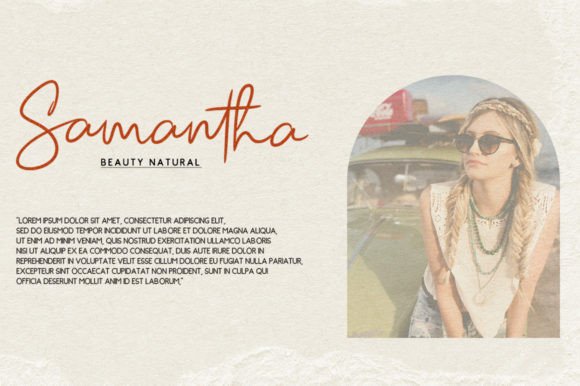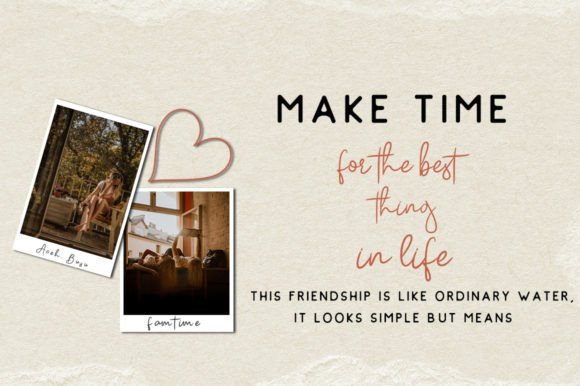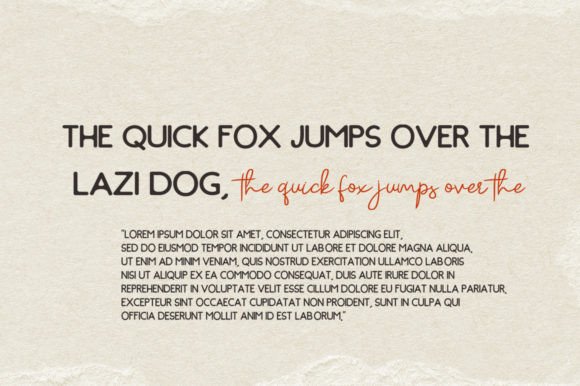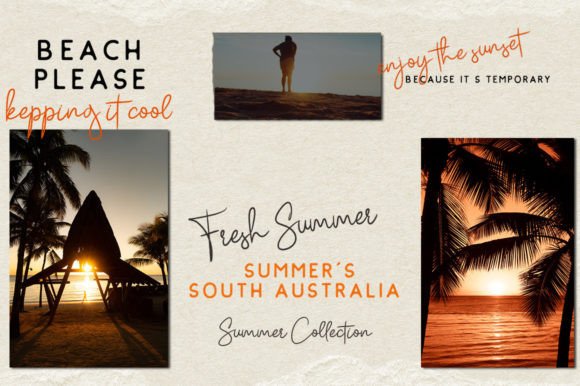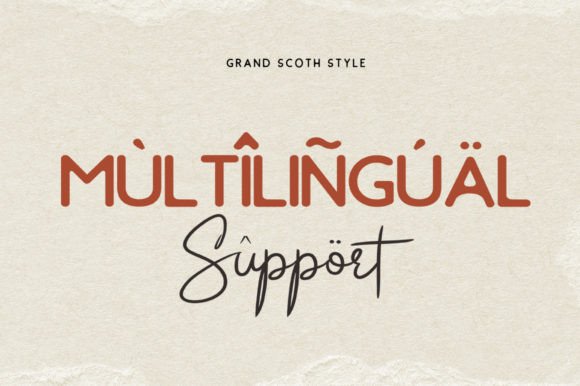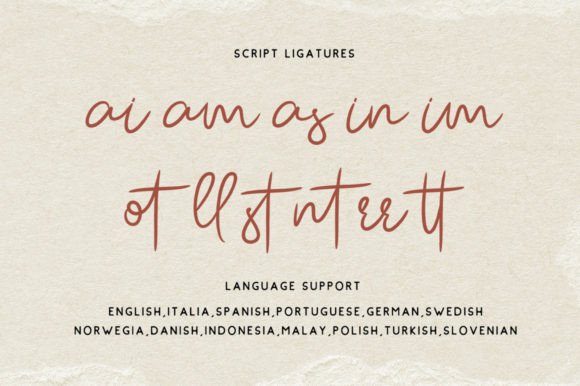
Discover the Timeless Elegance of Grand Scoth Font
Are you a designer or crafter looking for the perfect font to elevate your designs? Look no further than the Grand Scoth Font, a stunning combination of two fonts that will make your work stand out. In this article, we’ll dive into the unique features of Grand Scoth and explore how it can help you create spectacular designs that exude elegance and sophistication.
The Perfect Combination: Round Sans and Authentic Signature Typeface
Grand Scoth Font is the perfect blend of two fonts: a round sans and an authentic signature typeface. This unique combination allows you to create designs that are both modern and timeless. The round sans font provides a clean and crisp look, while the authentic signature typeface adds a touch of elegance and sophistication. Whether you’re designing a logo, brochure, or social media post, Grand Scoth Font has got you covered.
Incredibly Distinct and Timeless Style
One of the standout features of Grand Scoth Font is its incredibly distinct and timeless style. The font’s unique design ensures that your designs will never go out of style, making it a valuable addition to your font collection. The round sans font is perfect for headlines and titles, while the authentic signature typeface is ideal for adding a personal touch to your designs. With Grand Scoth Font, you can create designs that are both modern and classic, making it perfect for a wide range of design projects.
Use Grand Scoth Font to Create Spectacular Designs
So, how can you use Grand Scoth Font to create spectacular designs? Here are a few ideas to get you started:
- Logos and Branding: Use Grand Scoth Font to create a unique and memorable logo that reflects your brand’s personality.
- Brochures and Flyers: Add a touch of elegance to your marketing materials with Grand Scoth Font’s authentic signature typeface.
- Social Media Posts: Make your social media posts stand out with Grand Scoth Font’s round sans font.
- Wedding Invitations: Use Grand Scoth Font to create beautiful and elegant wedding invitations that will impress your guests.
Why Designers and Crafters Love Grand Scoth Font
So, why do designers and crafters love Grand Scoth Font? Here are just a few reasons:
- Unique Design: Grand Scoth Font’s unique design ensures that your designs will stand out from the crowd.
- Versatility: Grand Scoth Font can be used for a wide range of design projects, from logos and branding to social media posts and wedding invitations.
- Elegance and Sophistication: Grand Scoth Font adds a touch of elegance and sophistication to any design, making it perfect for high-end brands and luxury products.
Get Ready to Fall in Love with Grand Scoth Font
If you’re looking for a font that will take your designs to the next level, look no further than Grand Scoth Font. With its unique combination of a round sans and authentic signature typeface, Grand Scoth Font is the perfect addition to your font collection. Whether you’re a designer or crafter, Grand Scoth Font is sure to inspire you to create spectacular designs that exude elegance and sophistication.
So, what are you waiting for? Discover the timeless elegance of Grand Scoth Font today and start creating designs that will leave a lasting impression!